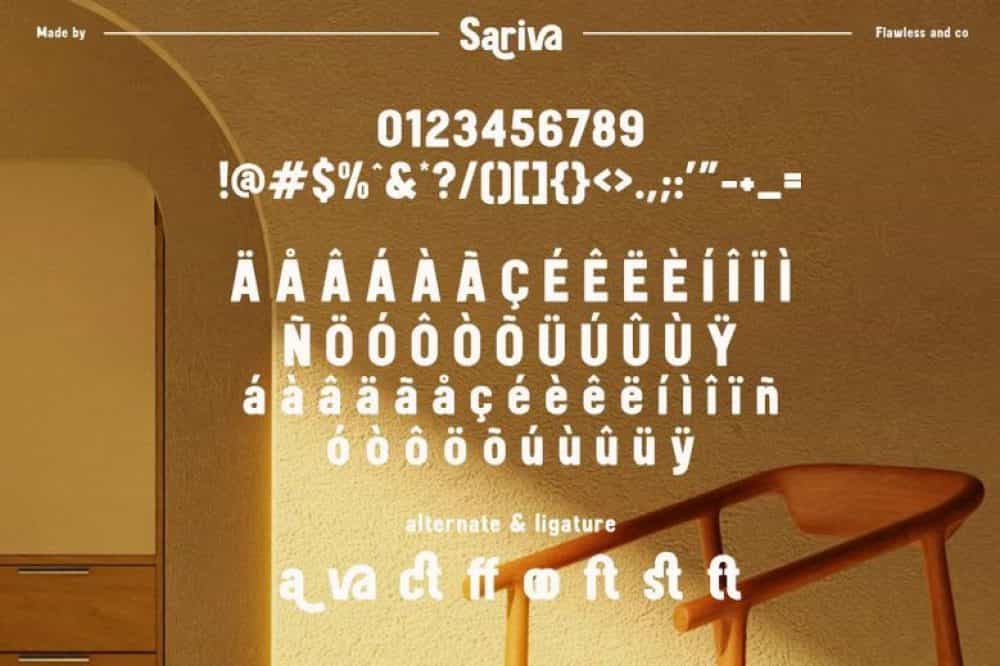
Sariva font is a rounded bold and Modern display sans serif font with characters that are suitable for any background. Sariva is quite a simple and almost minimalist design with clean lines and a very geometric layout that makes it seem more modern and professional suitable for almost any form of YouTube channel.